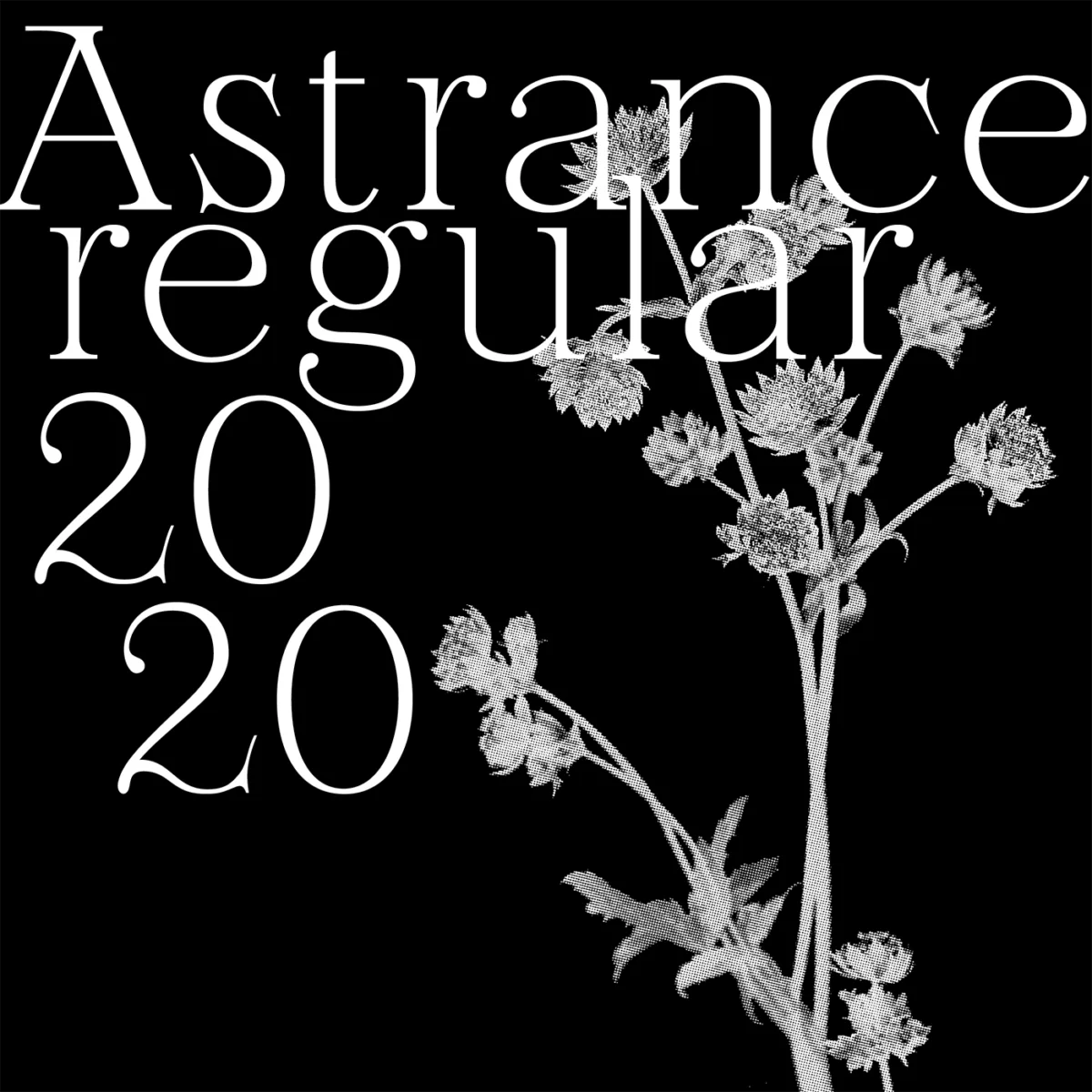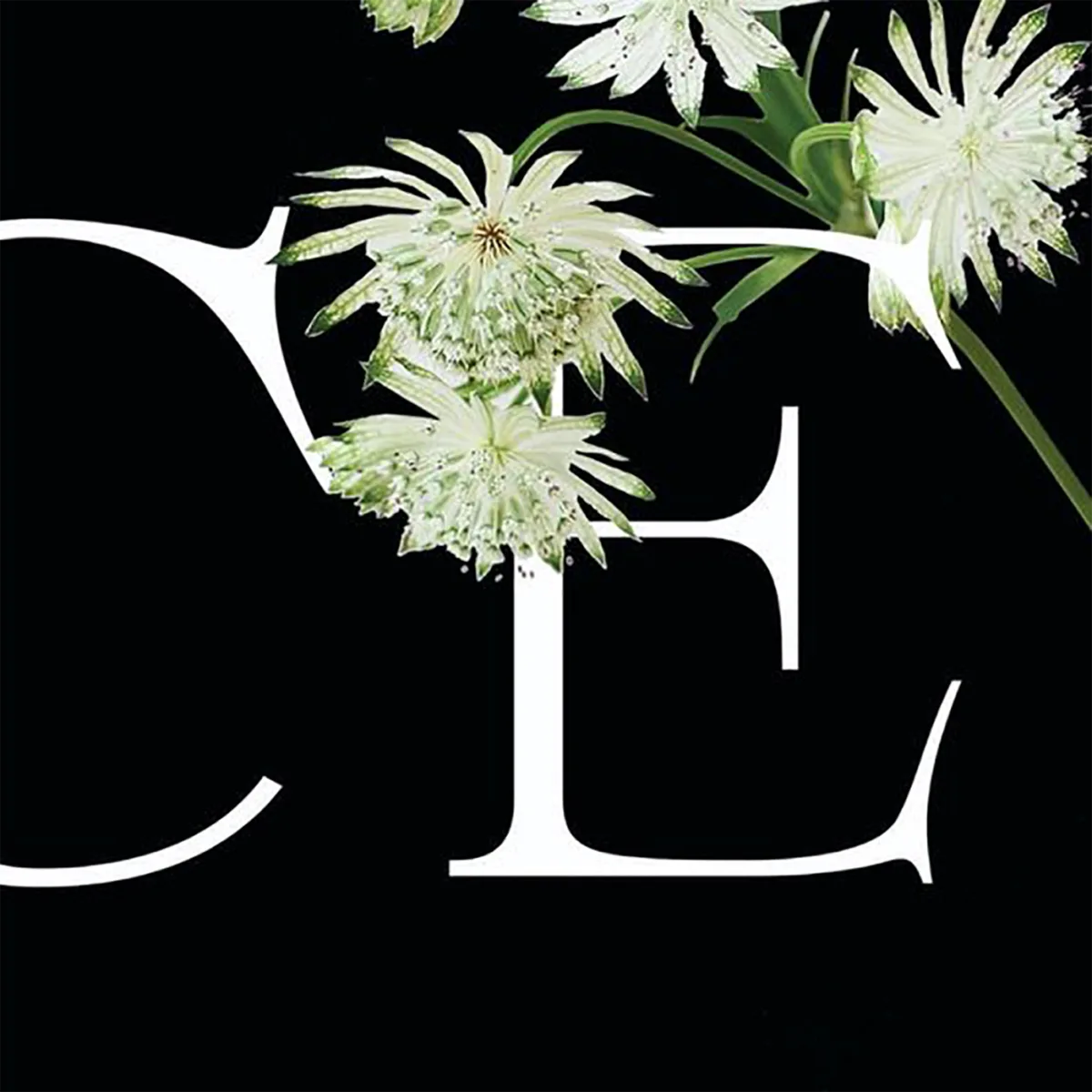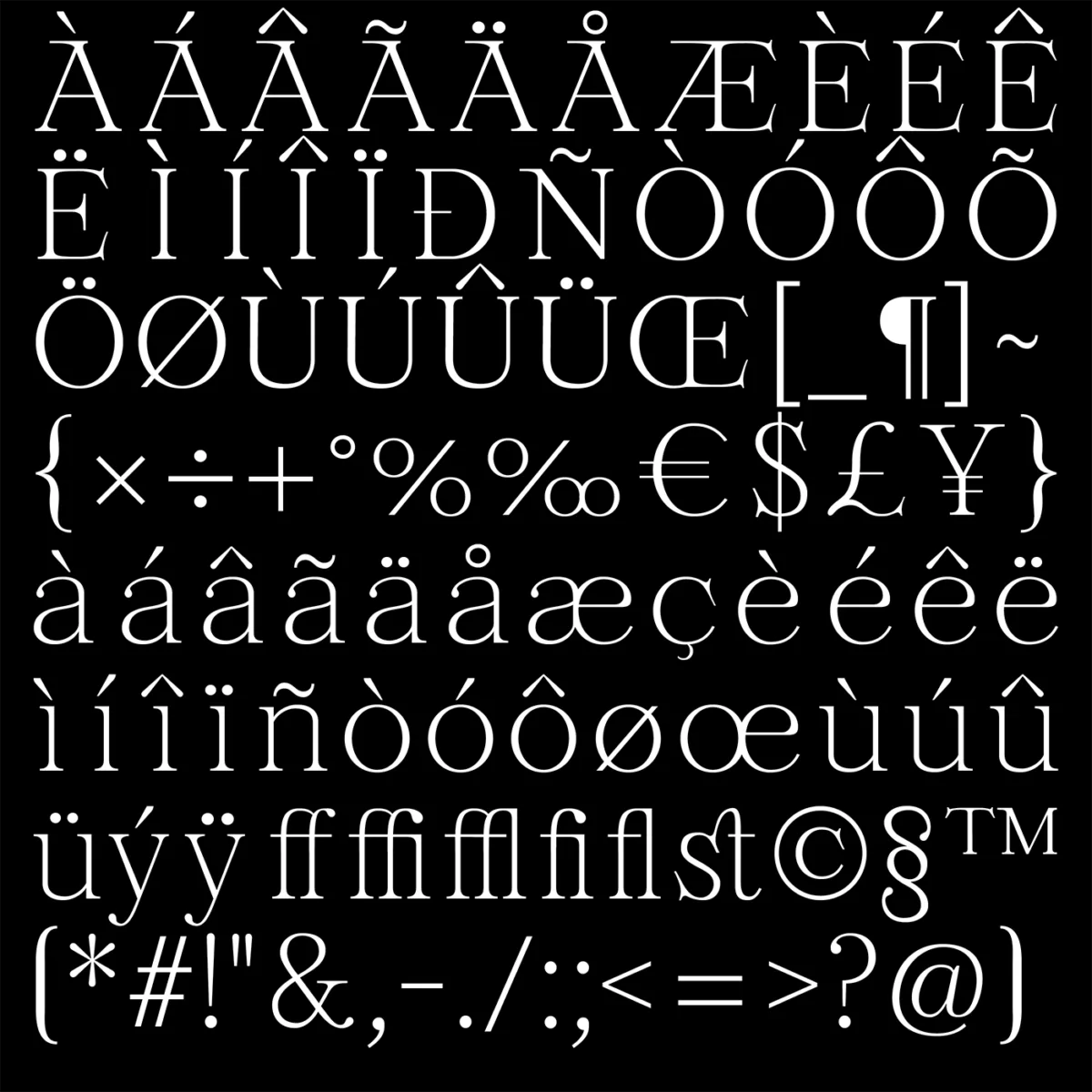
Inspired by the Astrantia flower, Astrance Regular is a stunning new typeface with features including a total glyph set of 191, 56 uppercase, 54 lowercase, 24 numbers, 6 diacritics, 22 punctuation marks and 6 ligatures.
The serif typeface is the brainchild of Paris-based graphic and type designer, Mathilde Quentin. Based on classical forms, the typeface’s delicately rendered serifs play with the harsh-yet-gentle contrast of the Astrantia’s curves and thorns, giving it a timeless, elegant and refined presence.
Both soft and strong, this classically timeless typeface would look beautiful in branding and editorial settings, calling attention without overpowering other visual elements.